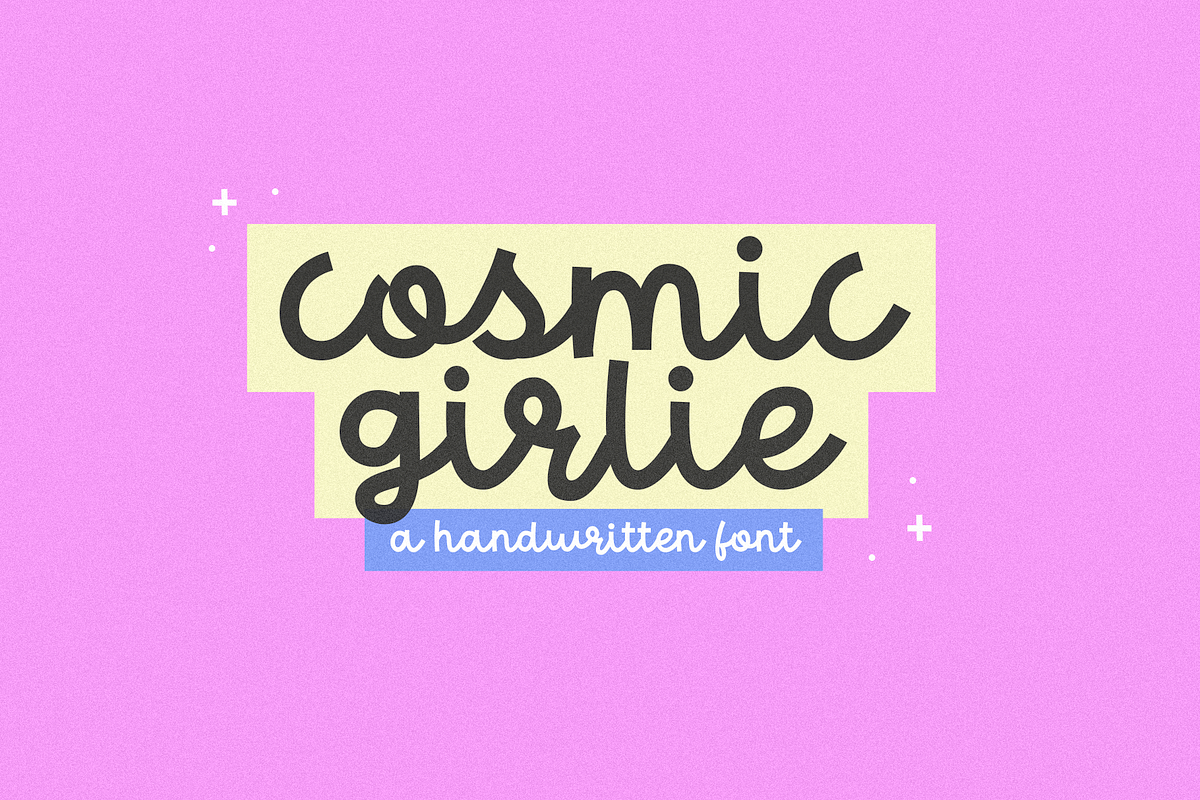
Cosmic Girlie Modern Script Font Free Download
Introducing Cosmic Girlie Modern Script Font Free Download, a delightful handwritten script font that brings a retro flair to your creative projects. Designed by KA Designs, this font is perfect for retro designs, Cricut projects, SVG files, shirts, stickers, logos, social media, and more. Its playful and stylish letterforms add a unique touch to any design, making it ideal for both personal and professional use. Download Cosmic Girlie Modern Script Font Free Download to explore its features in personal projects. For commercial use, please ensure you purchase the appropriate license. Elevate your designs with the charming and versatile Cosmic Girlie Modern Script Font Free Download